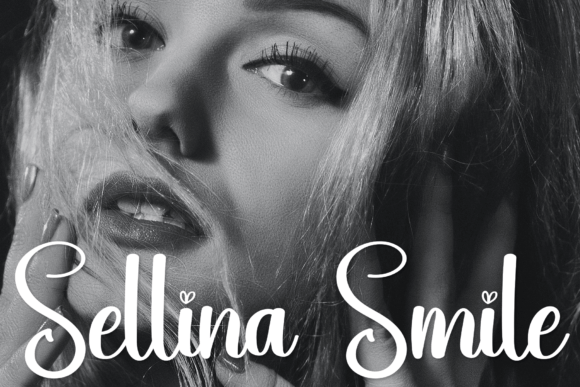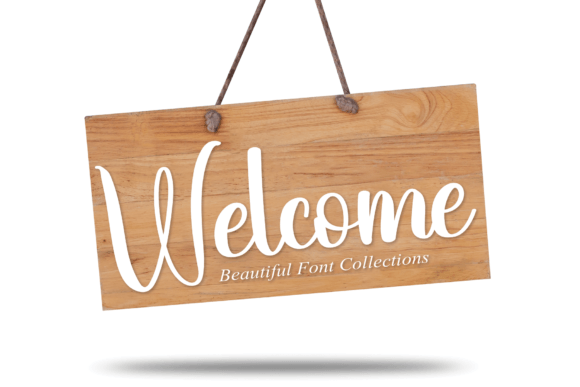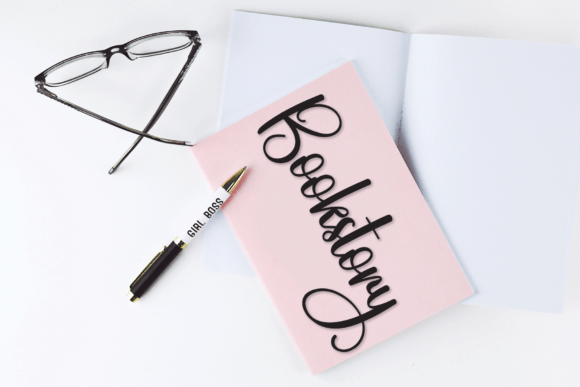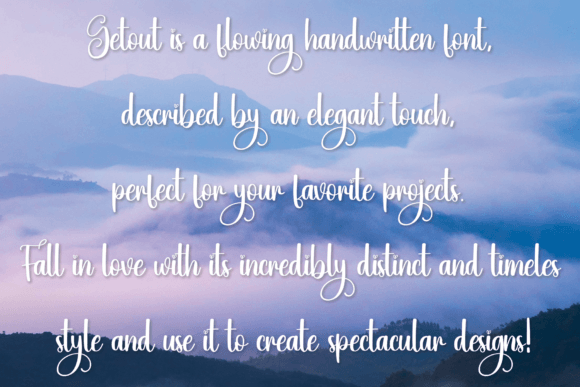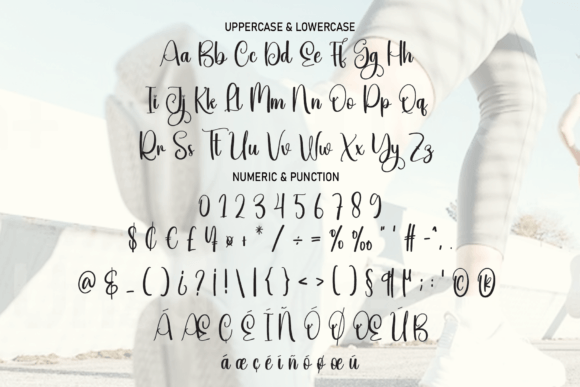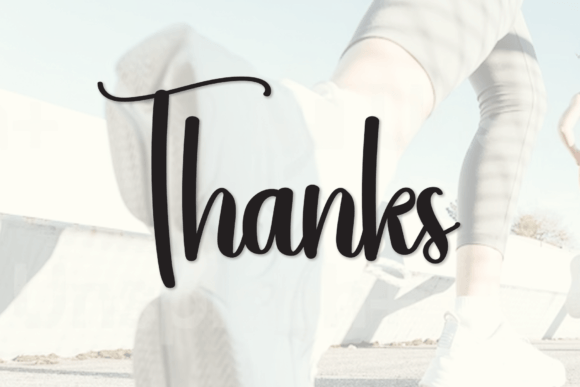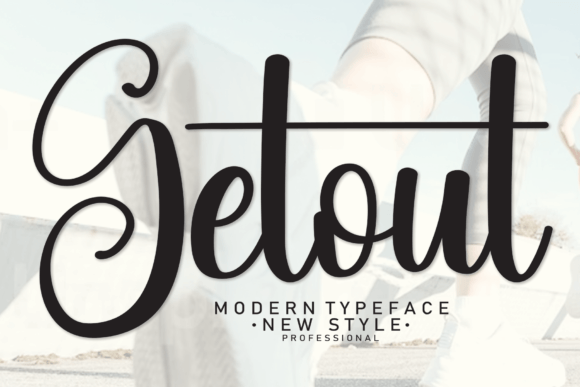
Introducing Getout Font: Elevate Your Creations with a Modern Handwritten Script
In the world of typography, a font can make or break the aesthetic of a design. For crafters, designers, and artists, finding the perfect font to complement their work can be a daunting task. However, with the introduction of Getout Font, your search is over. Getout is a modern and stylish handwritten script font that is sure to elevate the look of any of your beautiful creations while keeping them grounded and natural.
The Characteristics of Getout Font
Getout Font is a stunning example of modern typography. Its stylish, graceful, and flowing design makes it perfect for a wide range of applications, from digital designs to print materials. The font’s handwritten script style gives it a personal and organic feel, making it ideal for designers and crafters who want to add a touch of elegance and sophistication to their work.
What Makes Getout Font Stand Out
So, what sets Getout Font apart from other fonts on the market? Here are just a few of its standout features:
- Modern and stylish design: Getout Font boasts a fresh and contemporary design that is sure to turn heads.
- Handwritten script style: The font’s handwritten script style gives it a personal and organic feel that is perfect for a wide range of applications.
- Graceful and flowing: Getout Font’s elegant and flowing design makes it perfect for creating beautiful and eye-catching text.
- Grounded and natural: Despite its stylish design, Getout Font remains grounded and natural, making it perfect for designers and crafters who want to add a touch of elegance to their work.
Uses for Getout Font
Getout Font is incredibly versatile and can be used for a wide range of applications, including:
- Digital designs: Use Getout Font to add a touch of elegance and sophistication to your digital designs, from social media graphics to website headers.
- Print materials: Getout Font is perfect for print materials, such as brochures, flyers, and business cards.
- Crafting projects: Add a personal touch to your crafting projects, such as handmade cards and gift tags, with Getout Font.
- Branding and packaging: Use Getout Font to create beautiful and eye-catching branding and packaging materials that will help your business stand out.
Why Choose Getout Font?
With so many fonts on the market, why choose Getout Font? Here are just a few reasons why designers and crafters are falling in love with this modern handwritten script font:
- Easy to read: Despite its elegant design, Getout Font is incredibly easy to read, making it perfect for body text and headlines.
- Highly versatile: Getout Font can be used for a wide range of applications, from digital designs to print materials.
- Unique and stylish: Getout Font’s modern and stylish design makes it perfect for designers and crafters who want to add a touch of elegance and sophistication to their work.